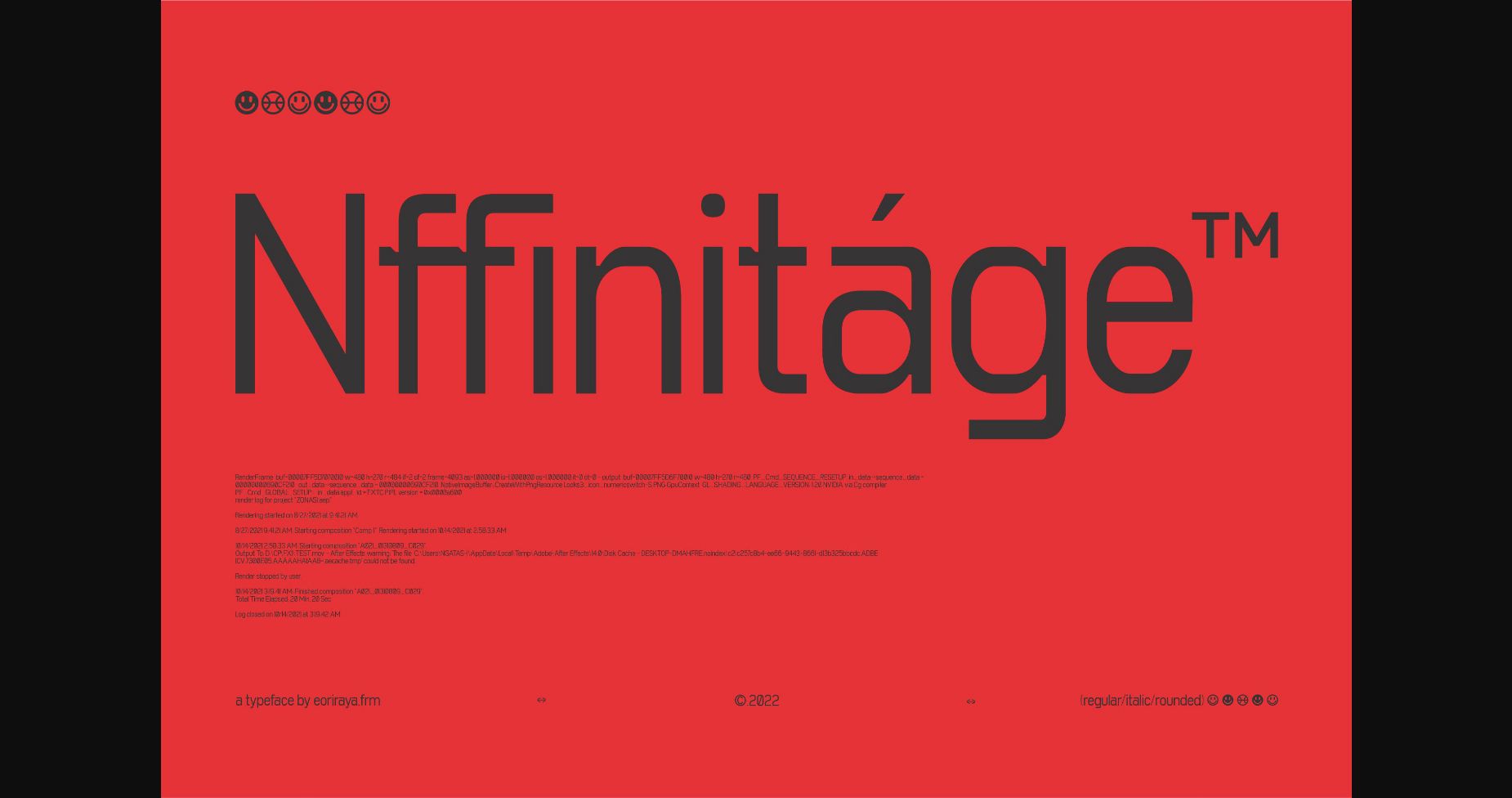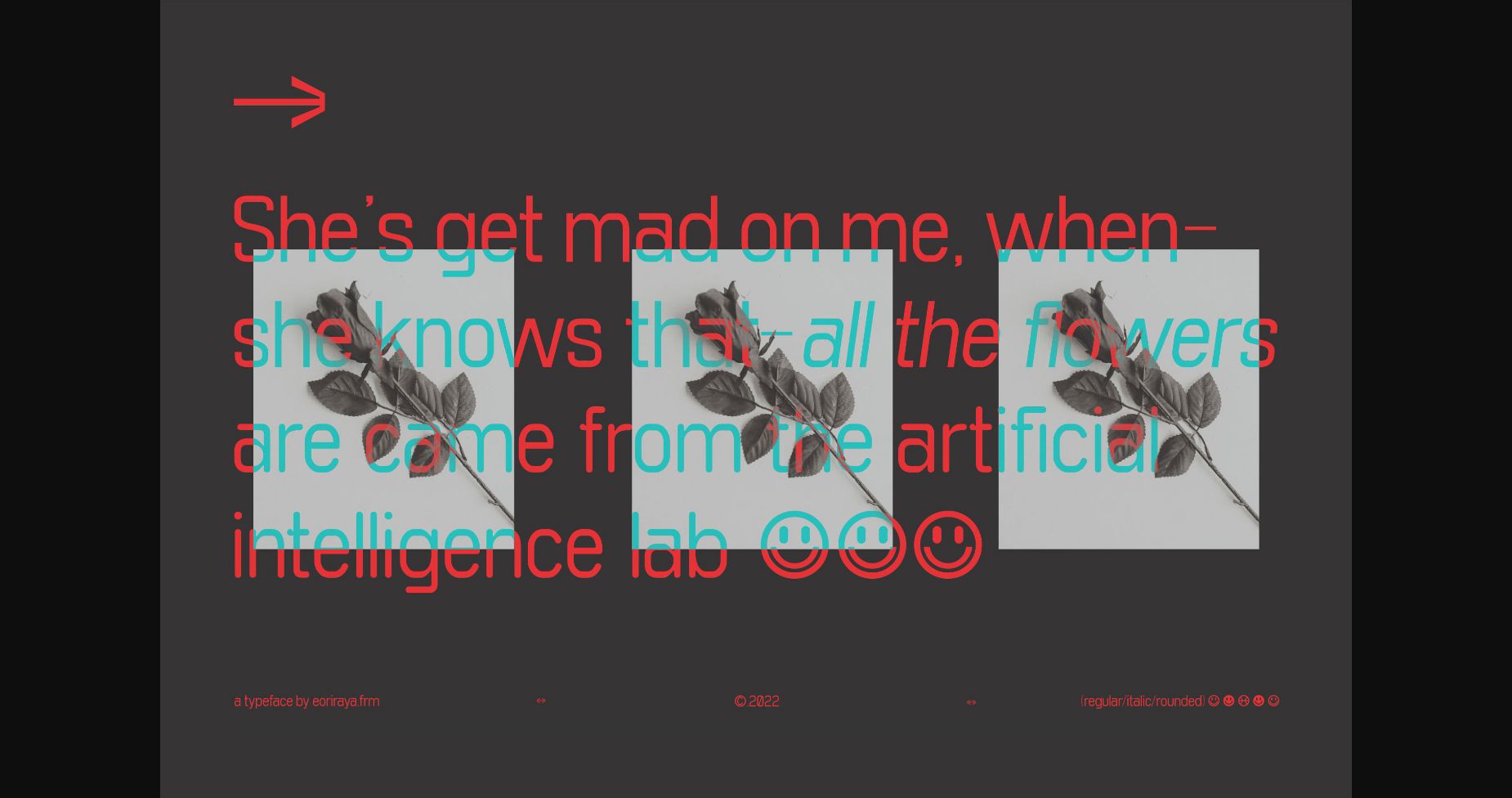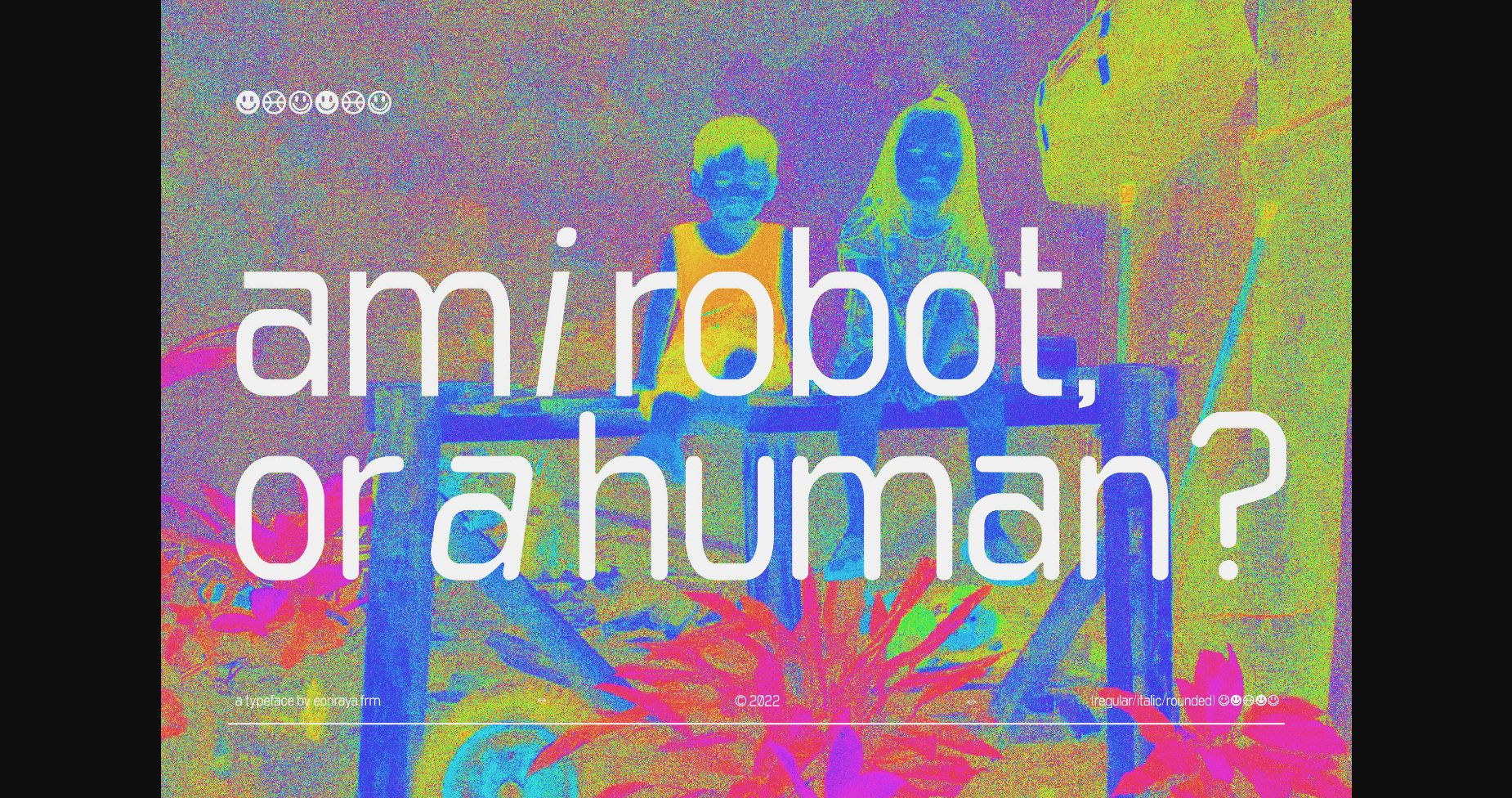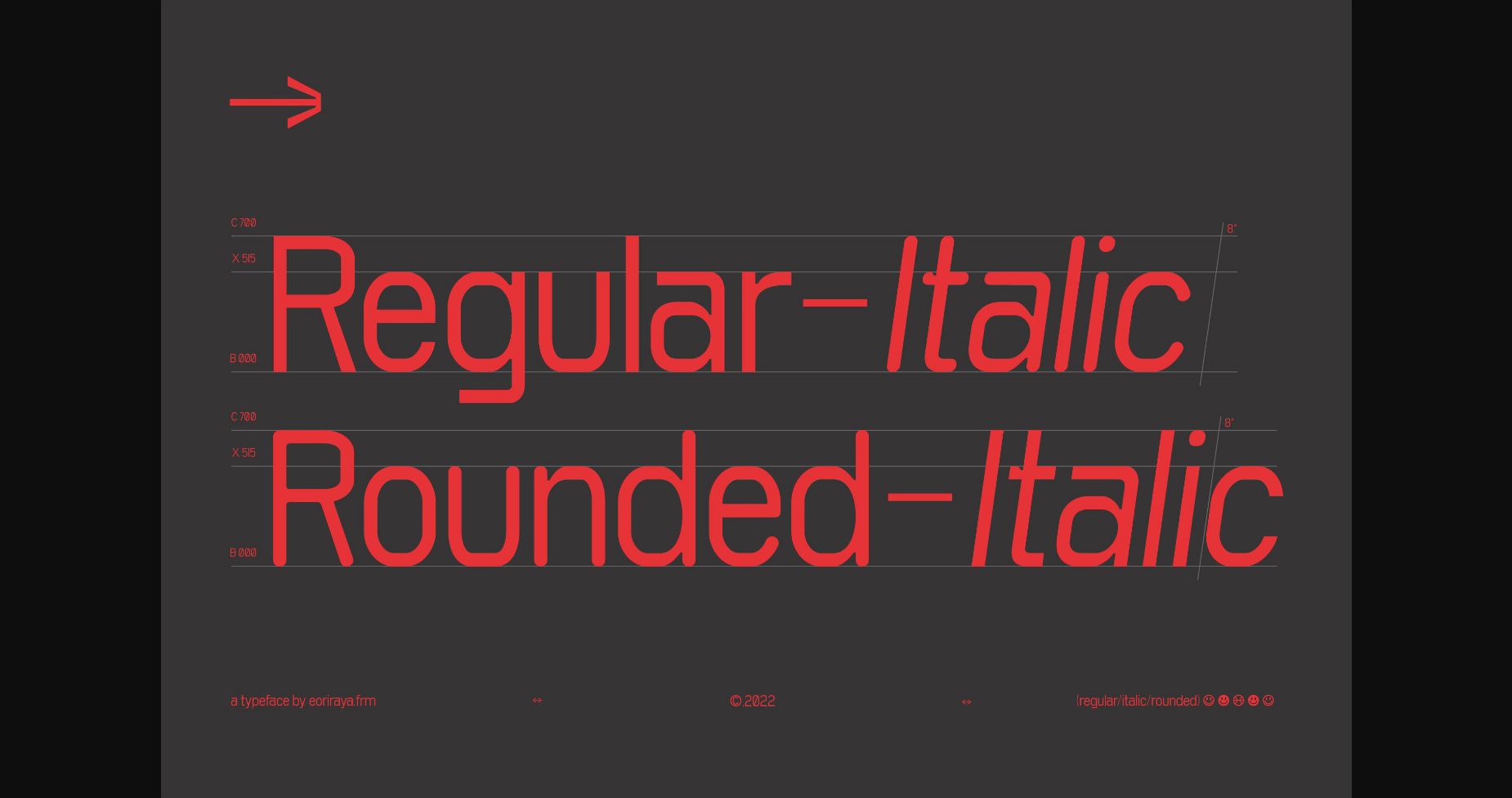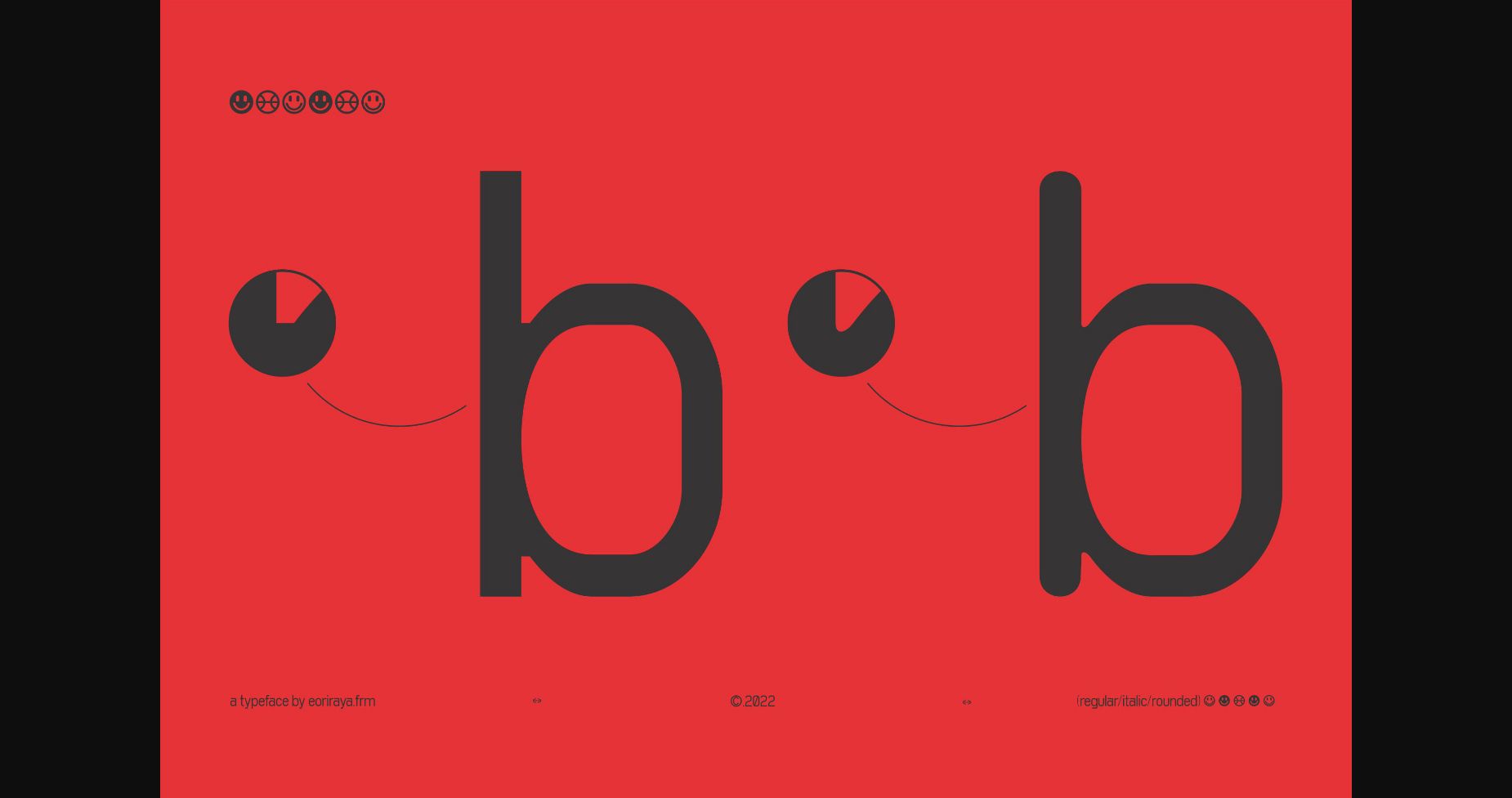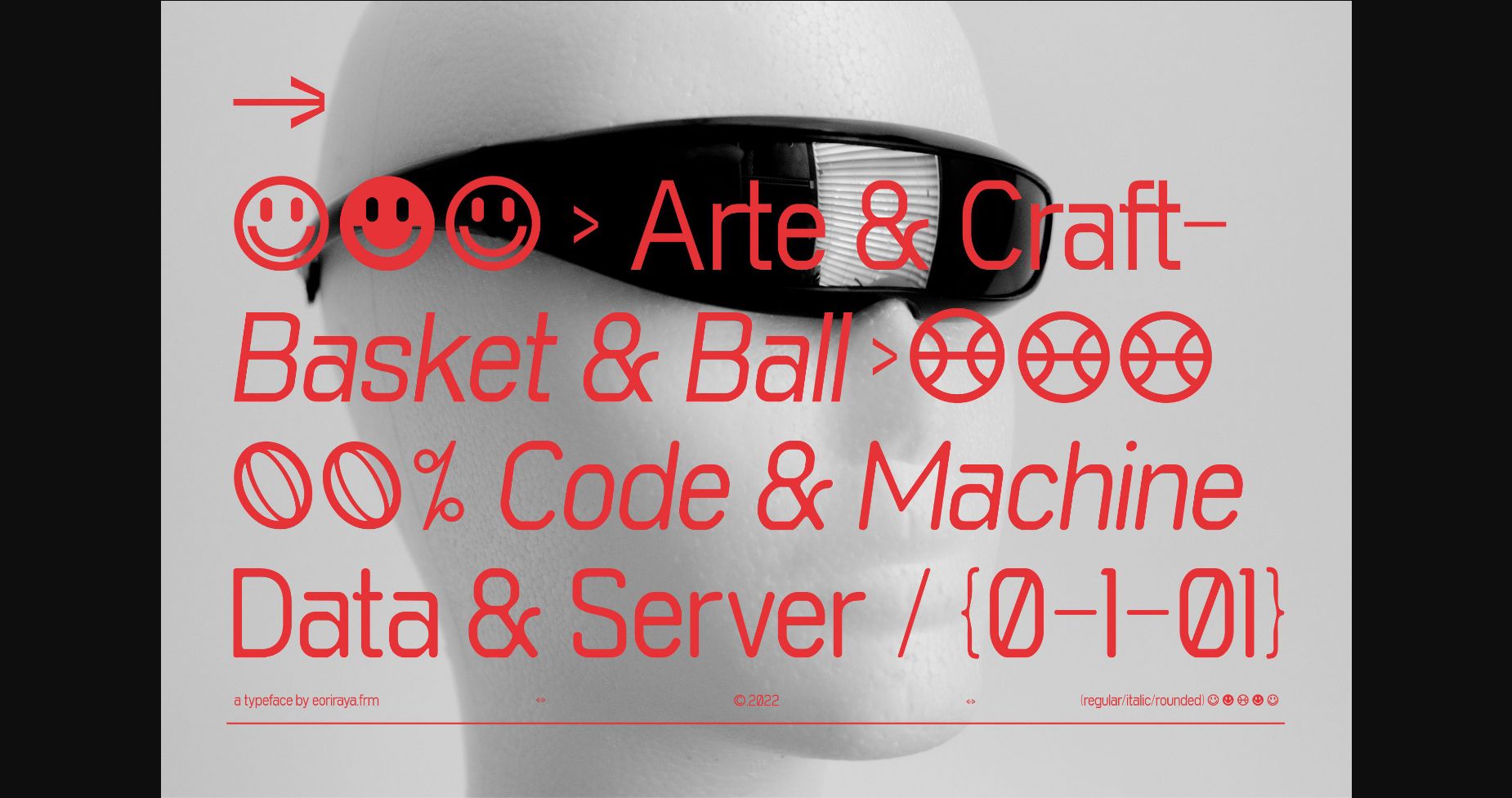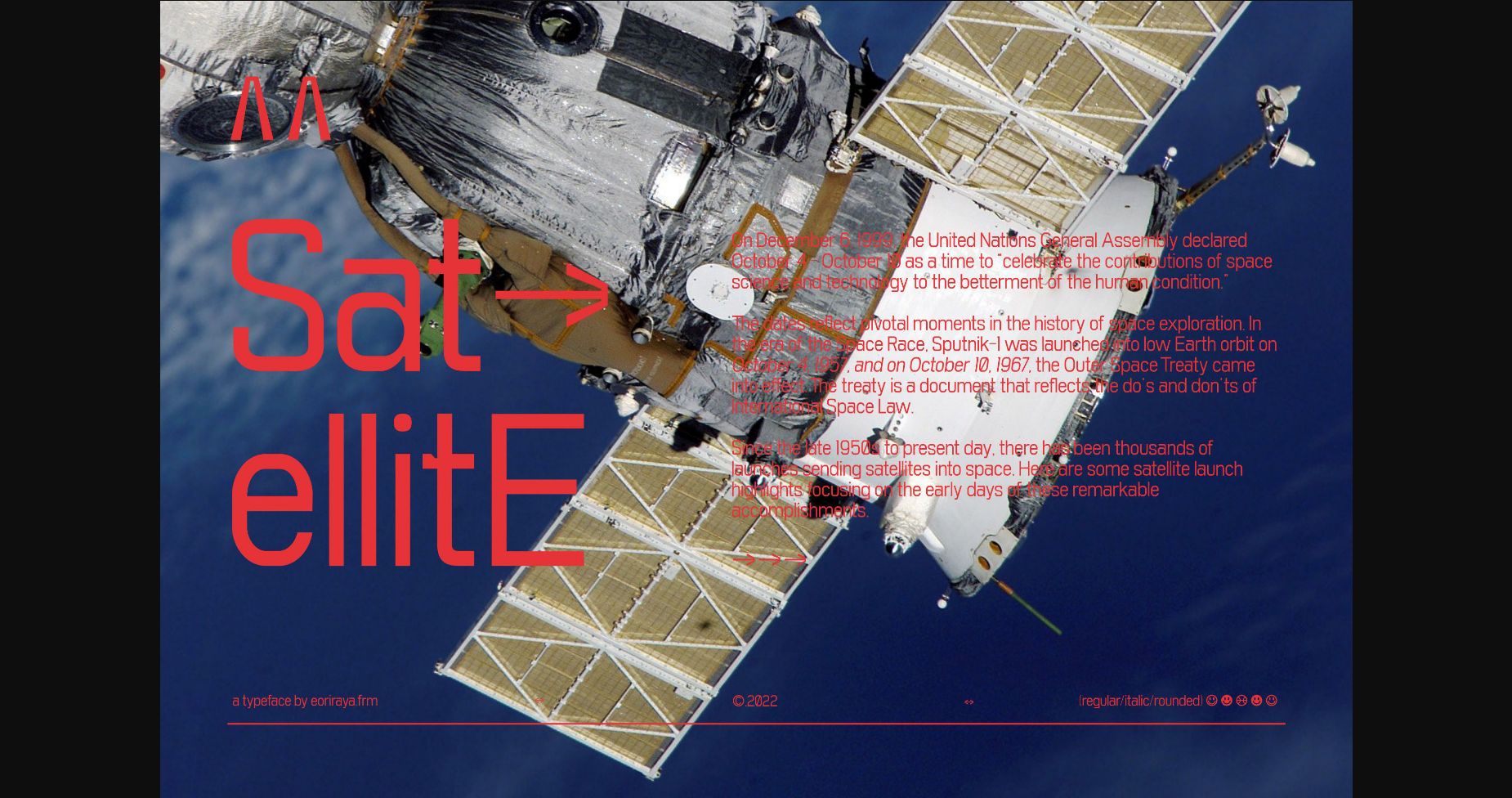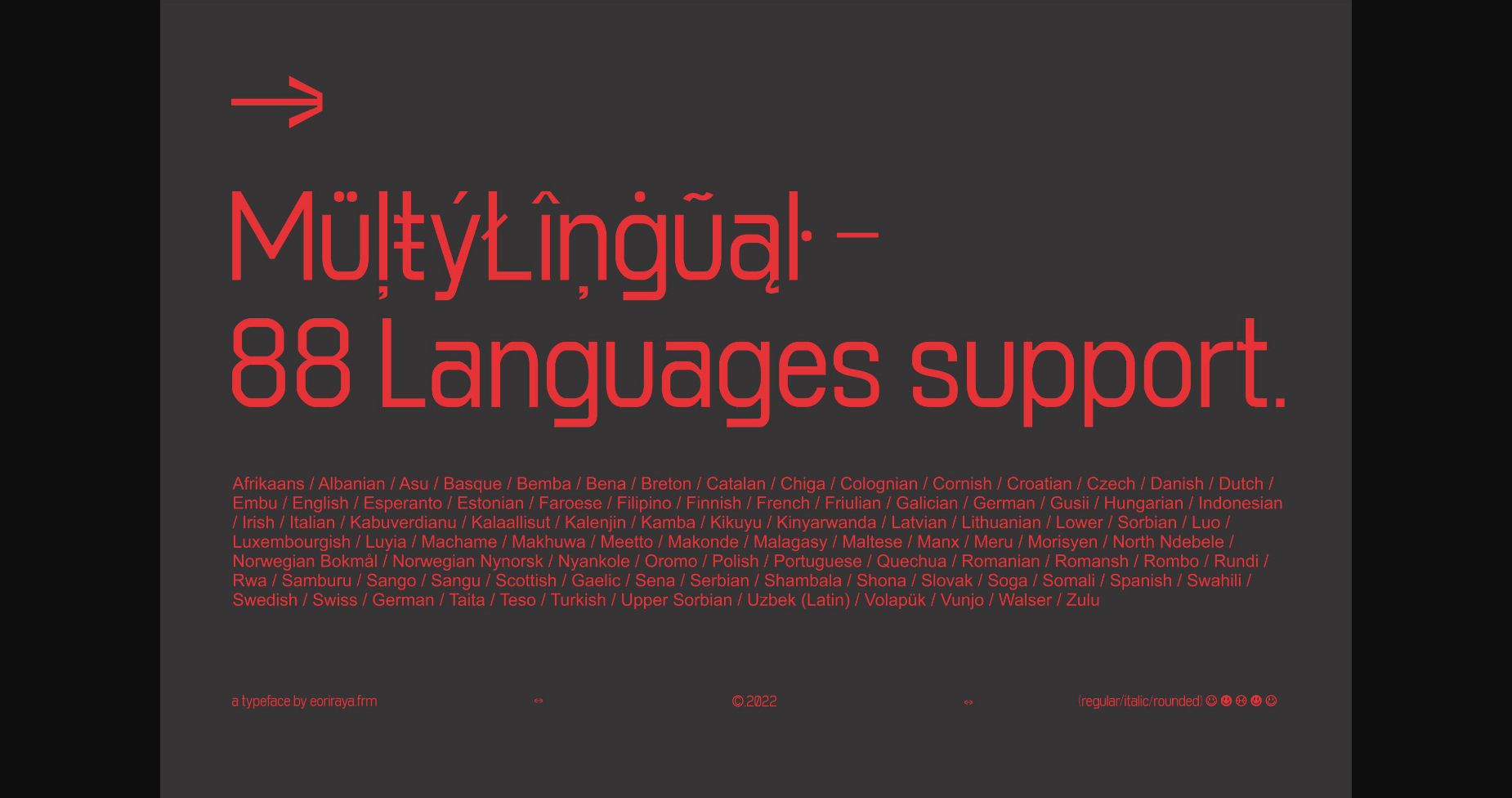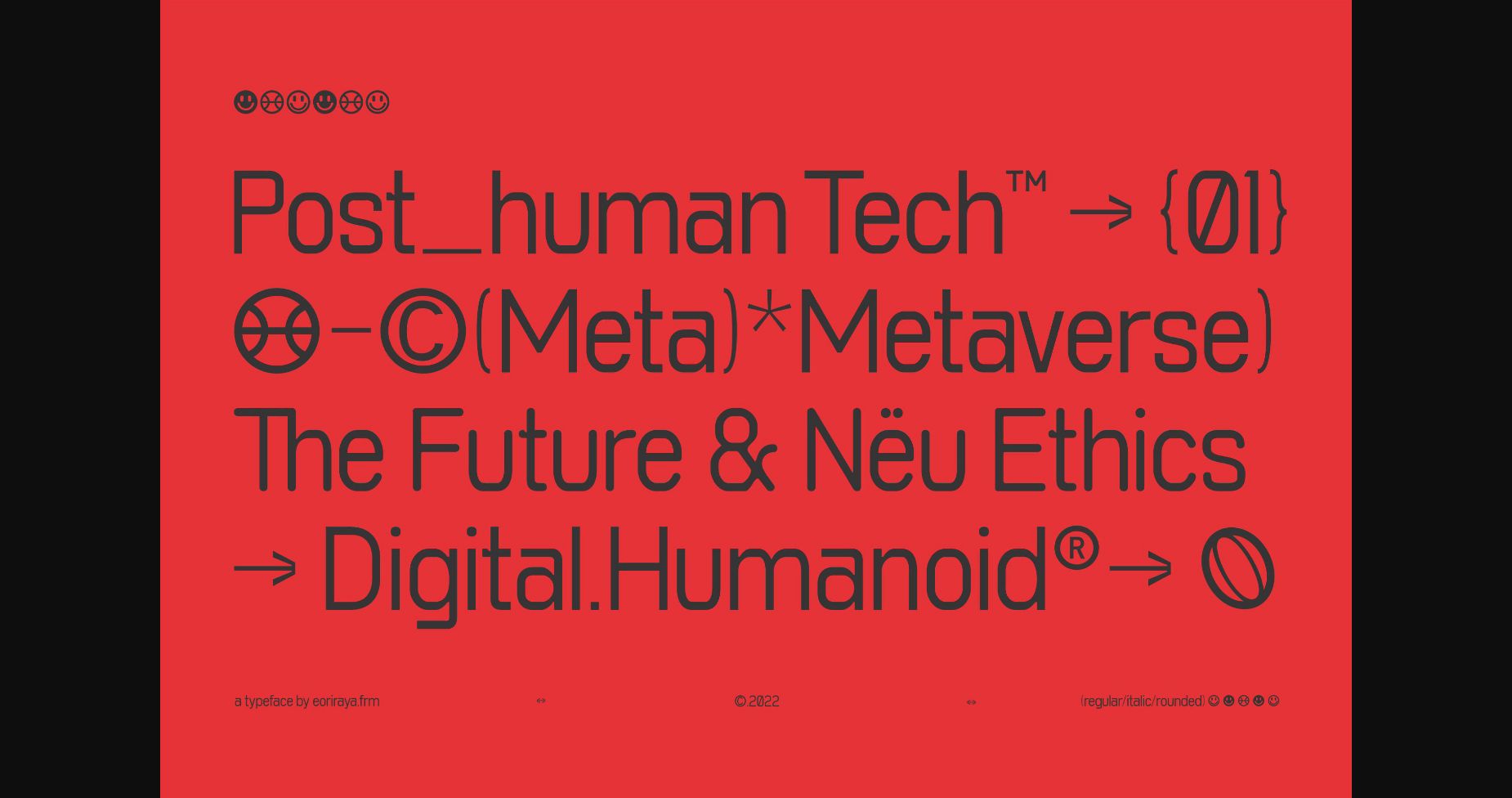
Nffinitage is a cool and modern looking sans serif font, designed with the help of geometric shapes. Add this font to each of your favorite creations that could benefit from a futuristic vibe.